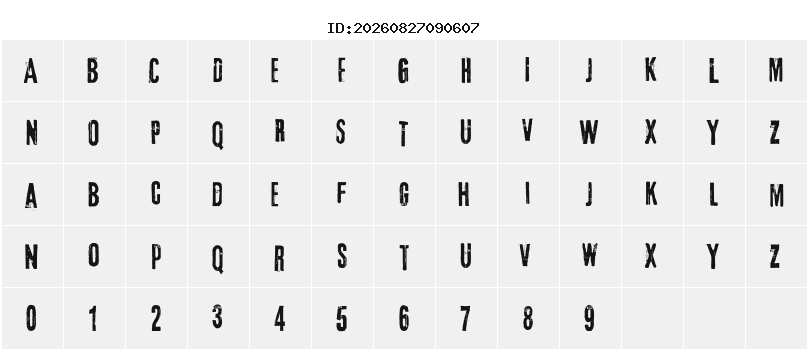
• Font Name: 3rd Man
About 3rd Man.otf
3rd Man.otf is a modern, elegant sans-serif font designed for ultimate readability and visual harmony. Perfect for branding, headlines, web design, and print materials.